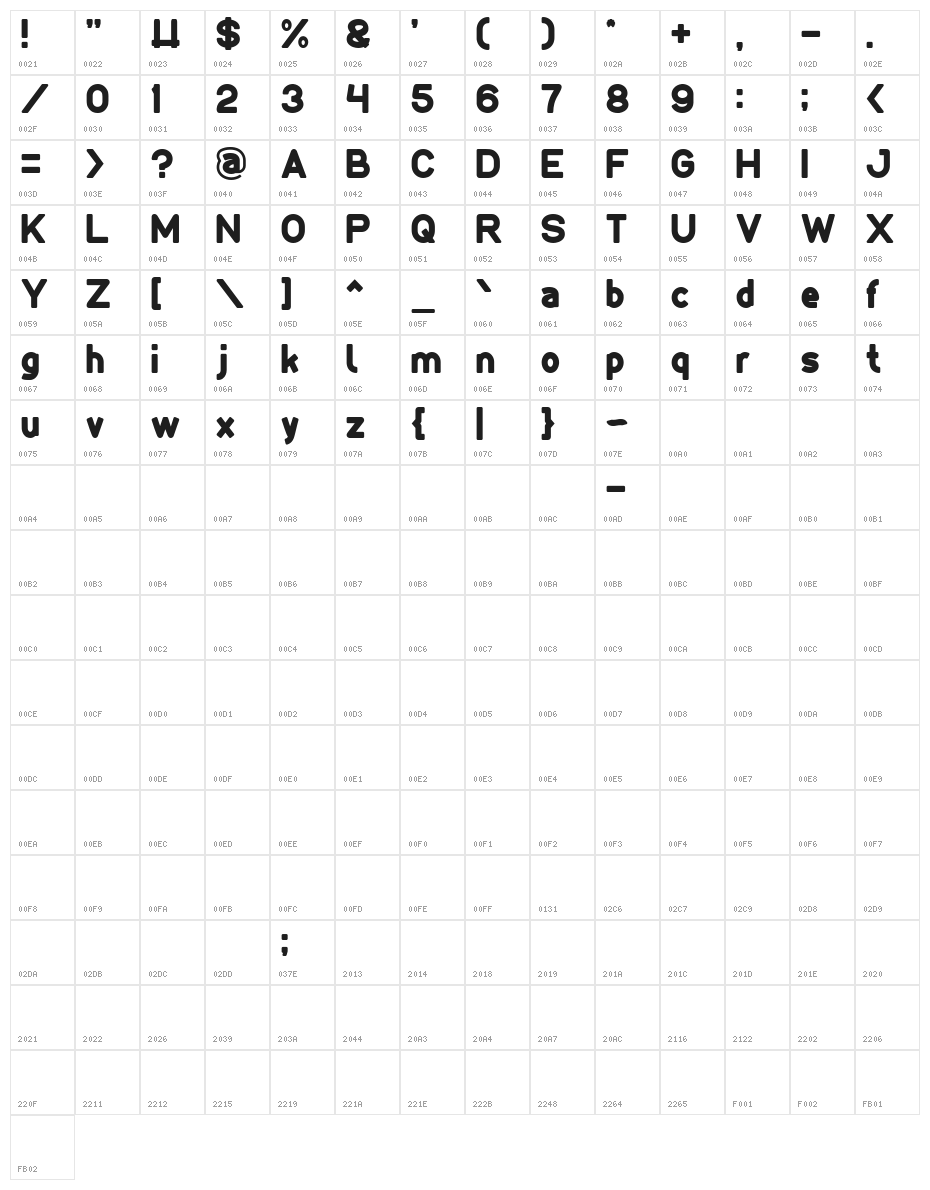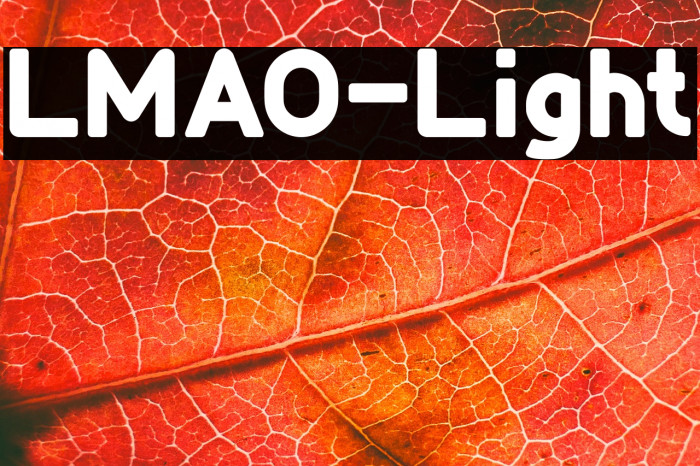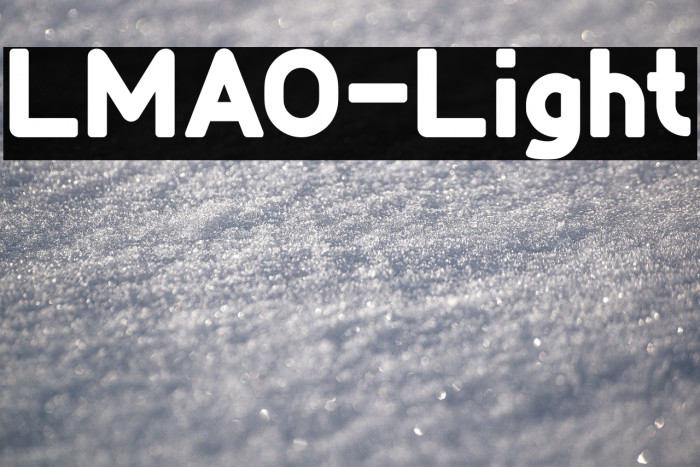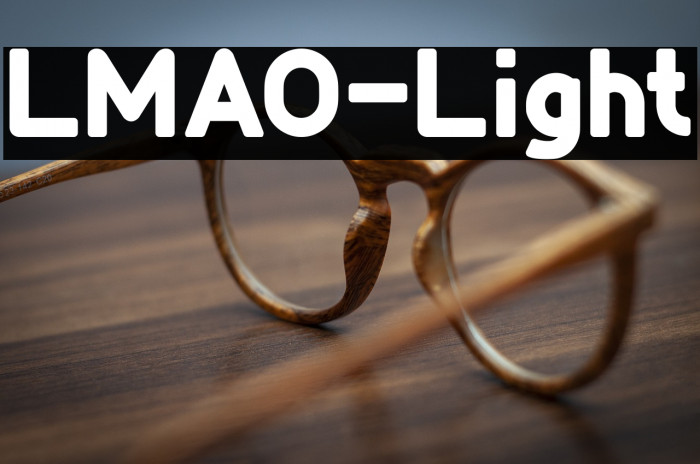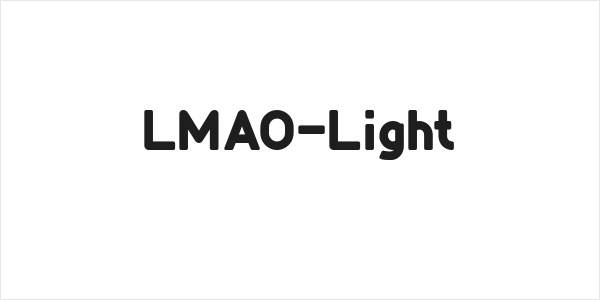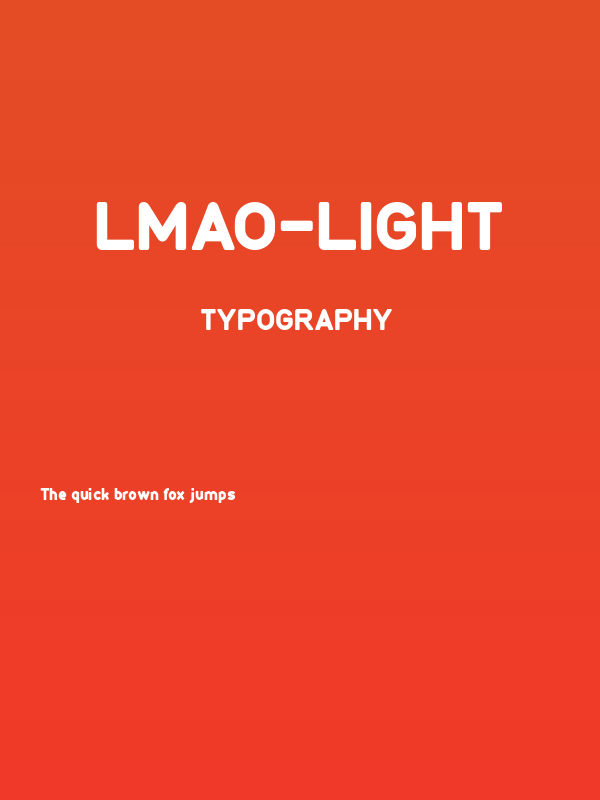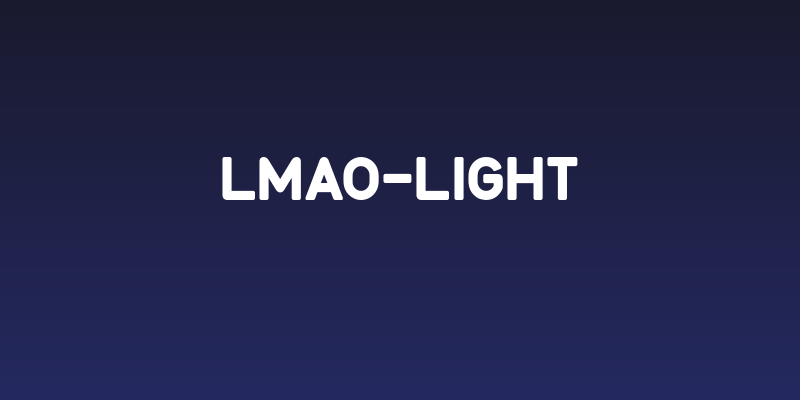
LMAO-Light Font
LMAO-Light Description
This font features a bold and rounded style with a playful and modern appearance. The characters are uniformly thick, giving it a strong presence and making it highly legible. The rounded edges add a friendly and approachable feel, while the consistent stroke width ensures clarity across all characters. The numerals and special characters maintain the same rounded and bold characteristics, ensuring uniformity throughout the font. This style is versatile, suitable for various design needs where a bold and modern look is desired.
| Proposed Projects | Ideal for branding, headlines, posters, and digital media where a strong and friendly impression is needed. |